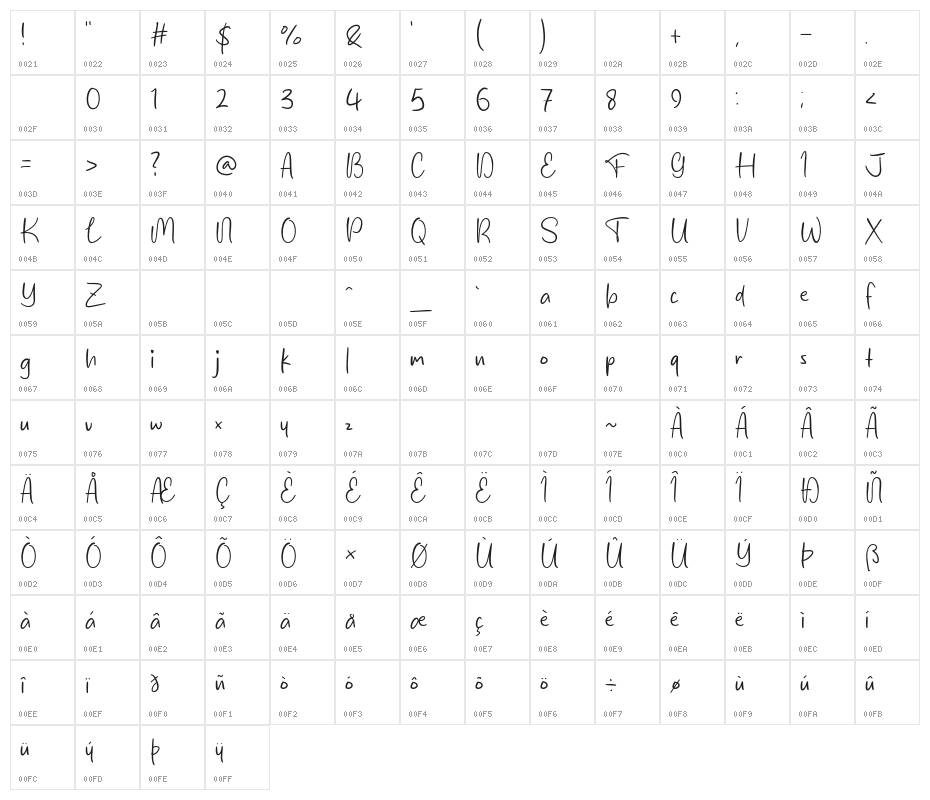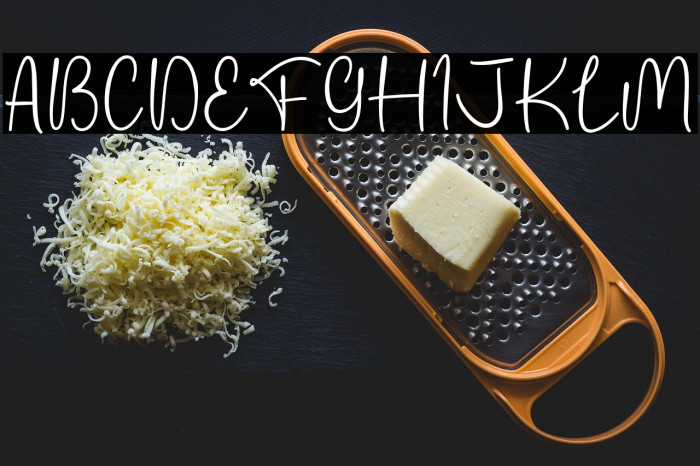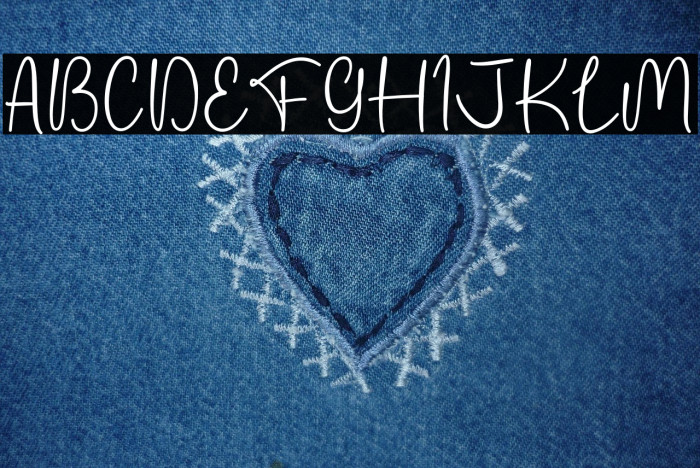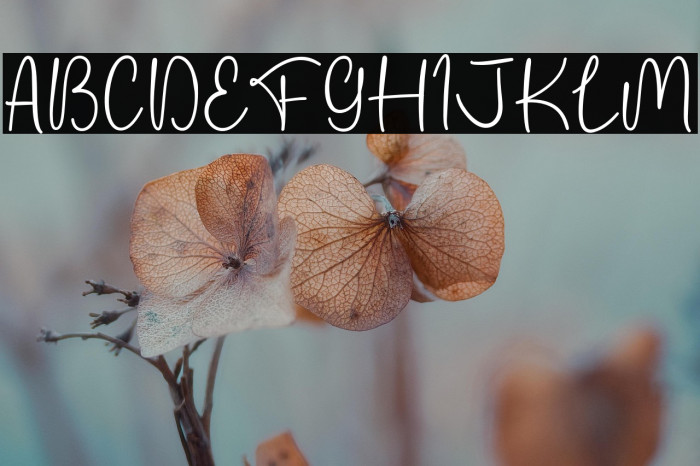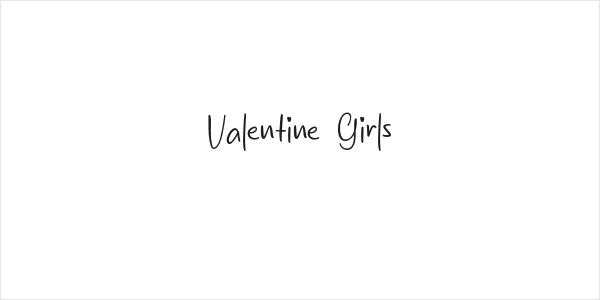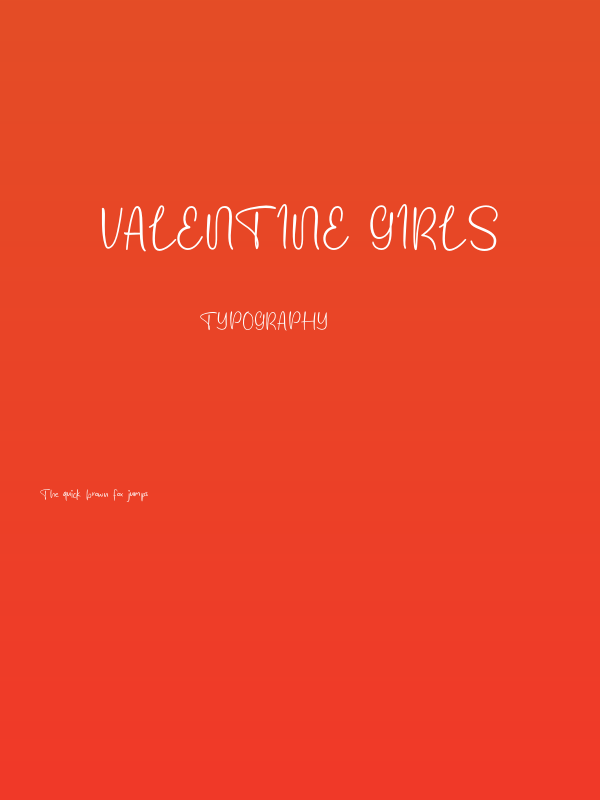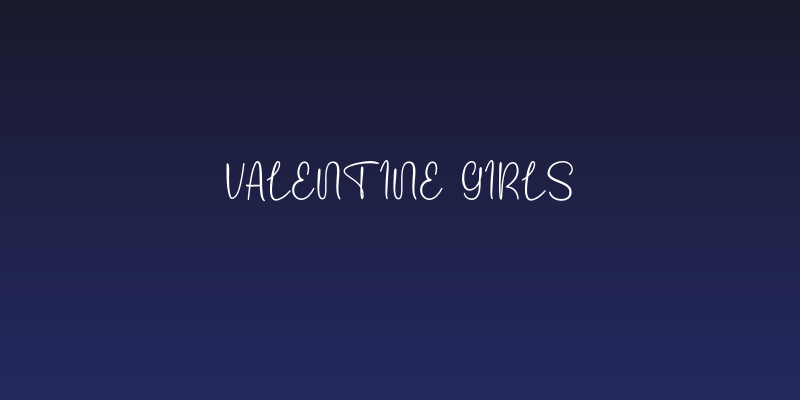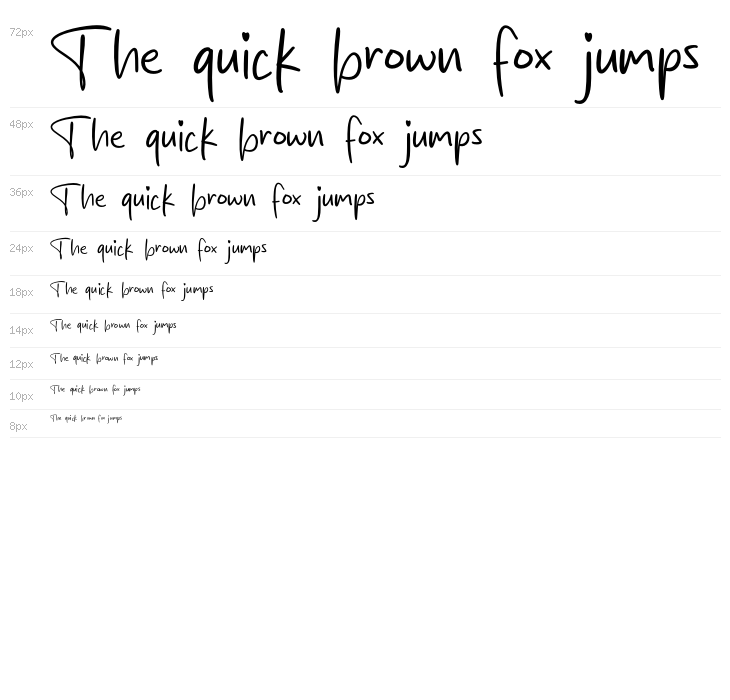
Valentine Girls Font
Valentine Girls Description
This font features a playful and casual handwritten style, characterized by its smooth, flowing lines and slightly irregular shapes. The uppercase letters are tall and slender, while the lowercase letters maintain a consistent height, adding to the font's approachable and friendly appearance. The numerals are clear and easy to read, matching the overall aesthetic. Special characters are included, maintaining the same whimsical style. This font is perfect for projects that require a personal touch, such as greeting cards, invitations, or informal branding.
| Use Case | Headlines, Informal text, Personal projects |
| Proposed Projects | Ideal for greeting cards, invitations, personal branding, and informal communication. |